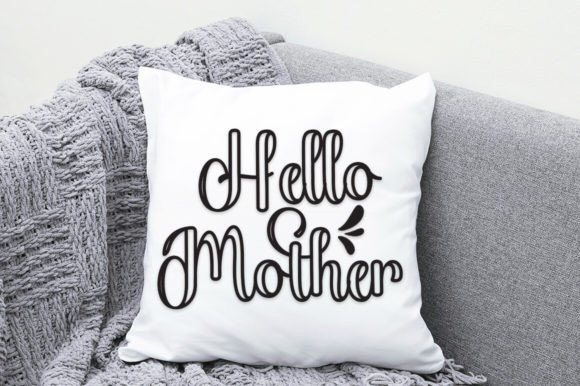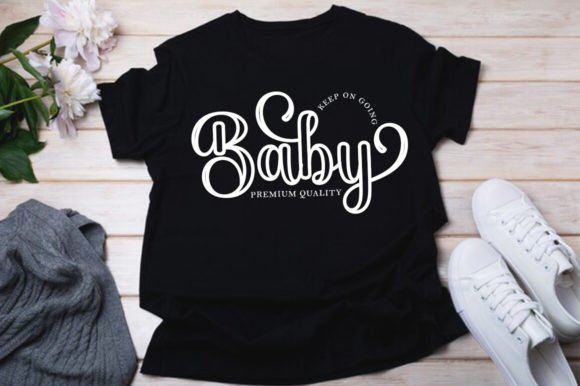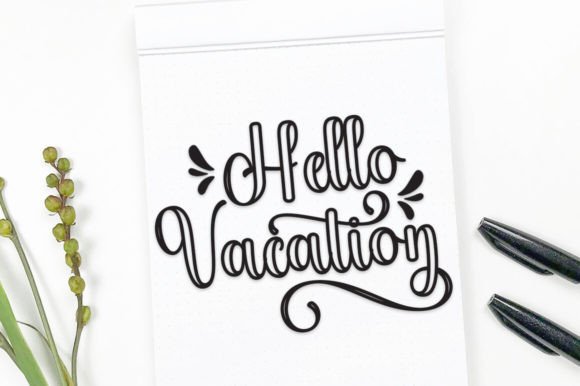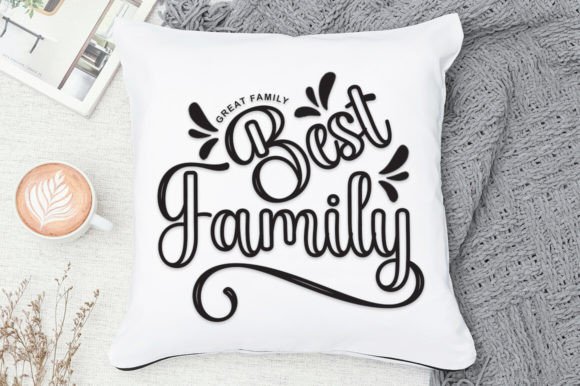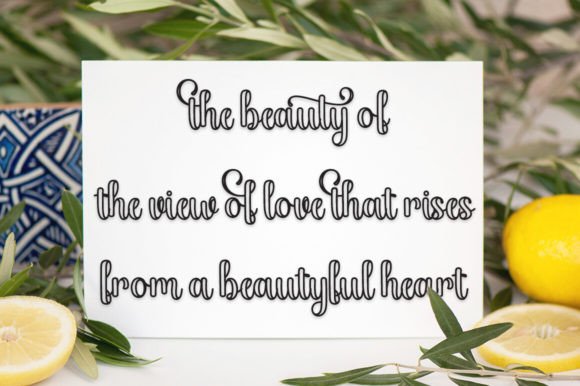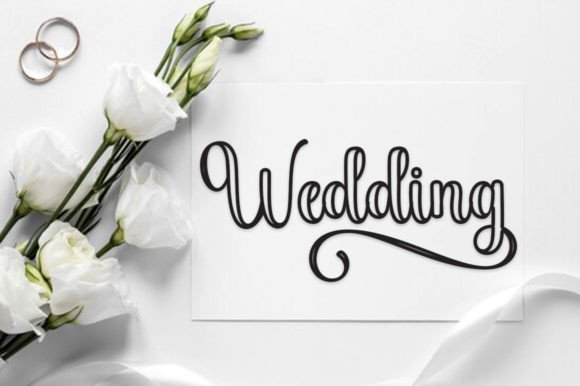
Discovering the Magic of the Perfect Font
Have you ever been stuck on a design project, staring at a blank page, trying to find the perfect font to bring your vision to life? That’s exactly what happened to me last week. I was working on a branding project, and I just couldn’t seem to find the right script font to convey the elegance and charm I was looking for. And then, like a ray of sunshine, I stumbled upon the Baby Ghubby Font.
This stunning script font is a masterclass in classic calligraphy, elevating any design project to new heights. Whether you’re working on branding, titles, wedding designs, invitations, signs, logos, labels, or more, the Baby Ghubby Font is the perfect companion to help you create something truly special. Its charming and elegant feel makes it a valuable asset for any designer looking to add a touch of sophistication to their work.
Baby Ghubby Font Key Features
- Font Family: Baby Ghubby Font is a unique, hand-drawn font family designed for various applications, including digital and print media.
- Character Count: The font family includes a wide range of characters, including uppercase and lowercase letters, numbers, and special symbols.
- Unique Characteristics: Baby Ghubby Font features a playful, cursive style with a mix of rounded and pointed letterforms, making it ideal for creating eye-catching and engaging designs.
Baby Ghubby Font Review
Overall, I was pleasantly surprised by the Baby Ghubby font. It’s a fun, playful typeface that’s perfect for adding a touch of whimsy to your designs. ✨
- Unique Character: Baby Ghubby has a distinct personality that sets it apart from more generic fonts.
- Expressive Variations: The font has a range of weights and styles that allow for creative experimentation.
- Legibility: Despite its playful nature, Baby Ghubby remains surprisingly legible, even at smaller font sizes.
One of the things I appreciate most about Baby Ghubby is its versatility. It works well in a variety of contexts, from children’s book illustrations to social media graphics.
- May Not be Suitable for Formal Text: Baby Ghubby’s playful nature may not be the best fit for formal or professional content.
- Some Characters May be Challenging to Read: While the font is generally legible, some characters may require closer attention to decipher.
- Not Ideal for Long Blocks of Text: Baby Ghubby is best used in shorter passages or as an accent font.
- May Not be Accessible for All Users: The font’s unique character may be challenging for some users with visual impairments.
Overall, I think Baby Ghubby is a great addition to any designer’s toolkit. While it may have some limitations, its unique character and versatility make it a valuable asset for adding a touch of personality to your designs.
Tips for Getting the Most Out of Baby Ghubby Font
Use Baby Ghubby Font to add a playful touch to your designs, especially for children’s products or services. Experiment with different font sizes and styles to create visual interest.
Baby Ghubby Font is perfect for:
- Children’s product labels and packaging
- Infographic titles and headings
- Playful social media posts and ads
- Fun and creative presentations